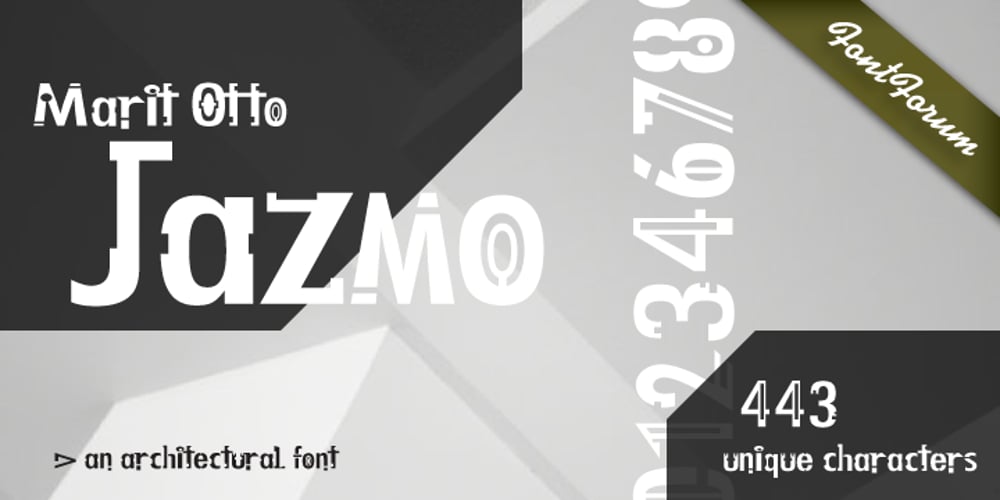
Jazmo Font Family was designed by Marit Angenita Otto and published by URW Type Foundry. Jazmo contains 1 styles and family package options. Jazmo is an offspring of an assignment I did for a Dutch architect. A classic building and coincidently the place of my studio in my hometown Zwolle, Netherlands, needed to be renovated. My job was to design the house numbers and signs for this building. This building I refer to was built in 1932 and designed according to the ‘New objectivity’ architecture. Now it accommodates several artist and craftsmen and also houses students. In my design I used elements of the Art Nouveau, which is related to the ‘New Objectivity’. Words as stately, angular, linear, stylish, artful, playful and frolic came to mind. It should be a design with a hint of the past and a flirt with the future. This house numbering is the root wherefrom Jazmo arises. The name Jazmo cites to the Jazz scene, which was a new and very popular artistic influence that time and age and is still a vibrant source of musical renewal. Mo stands for my Name Marit Otto. Together with my intern Arie Blok I created the missing characters and completed the font. Welcome Jazmo!